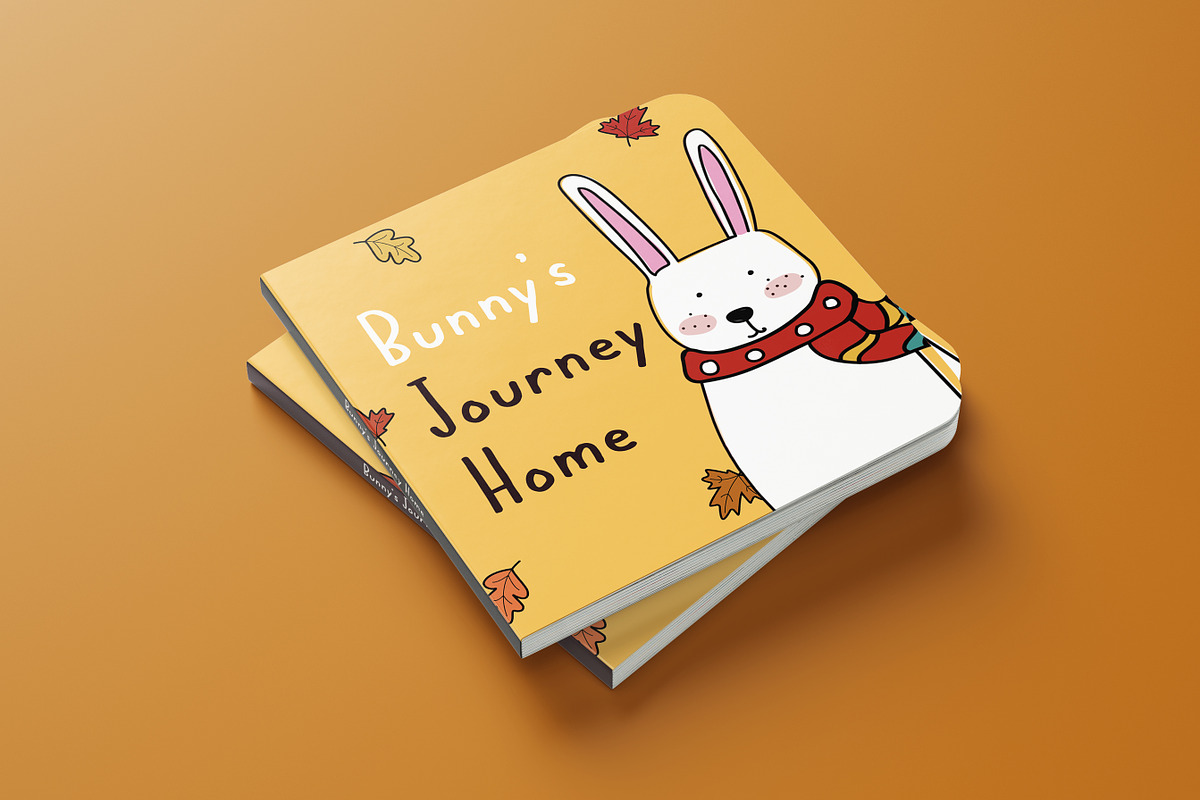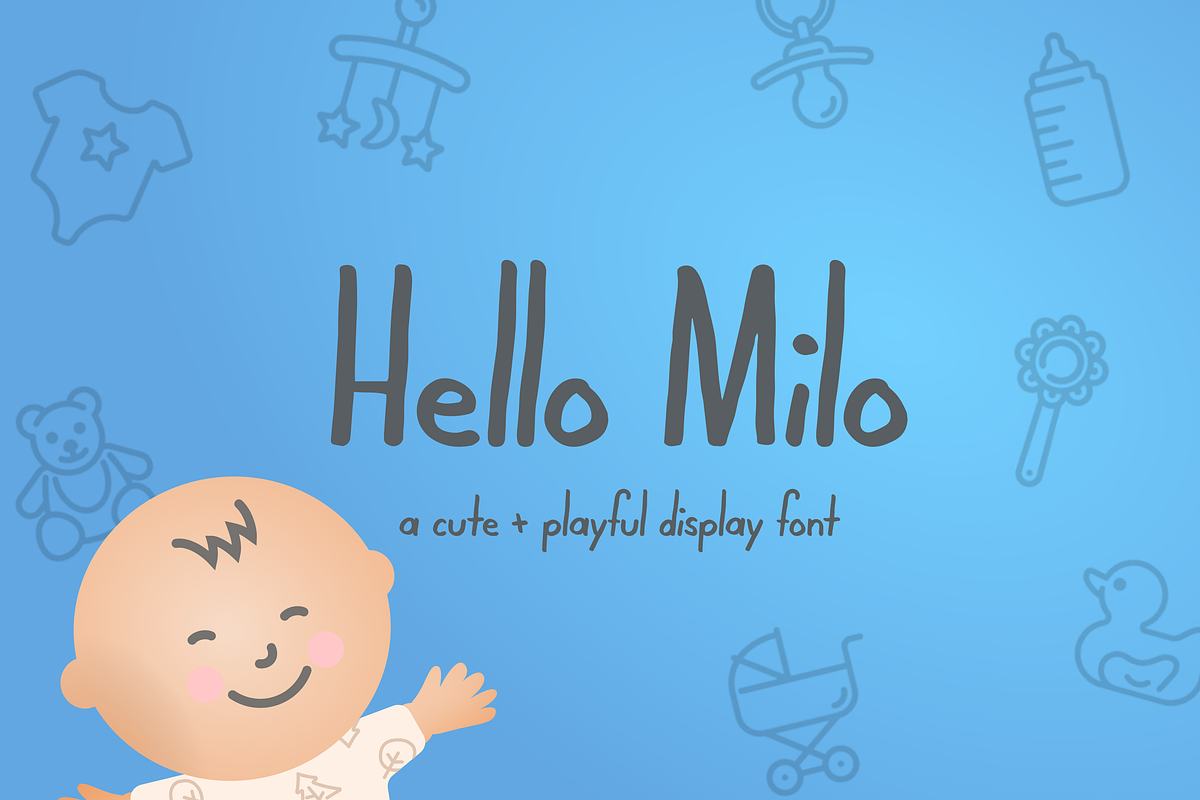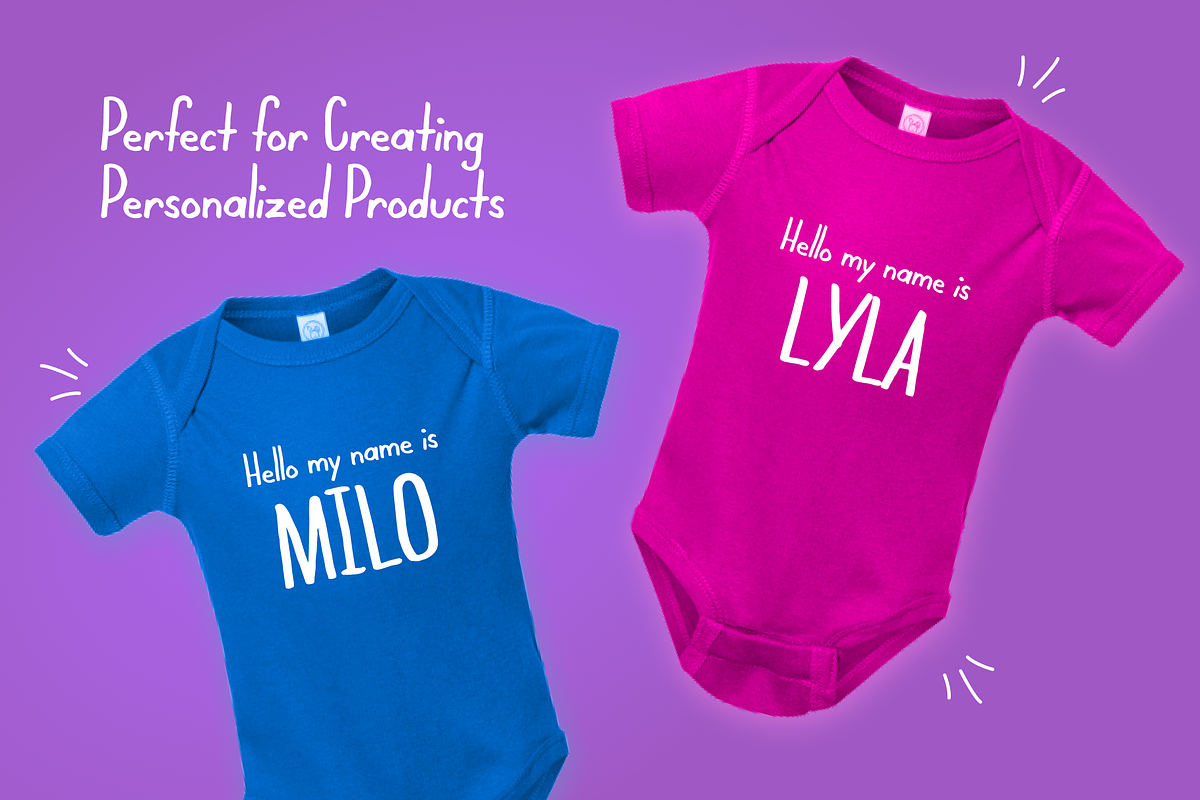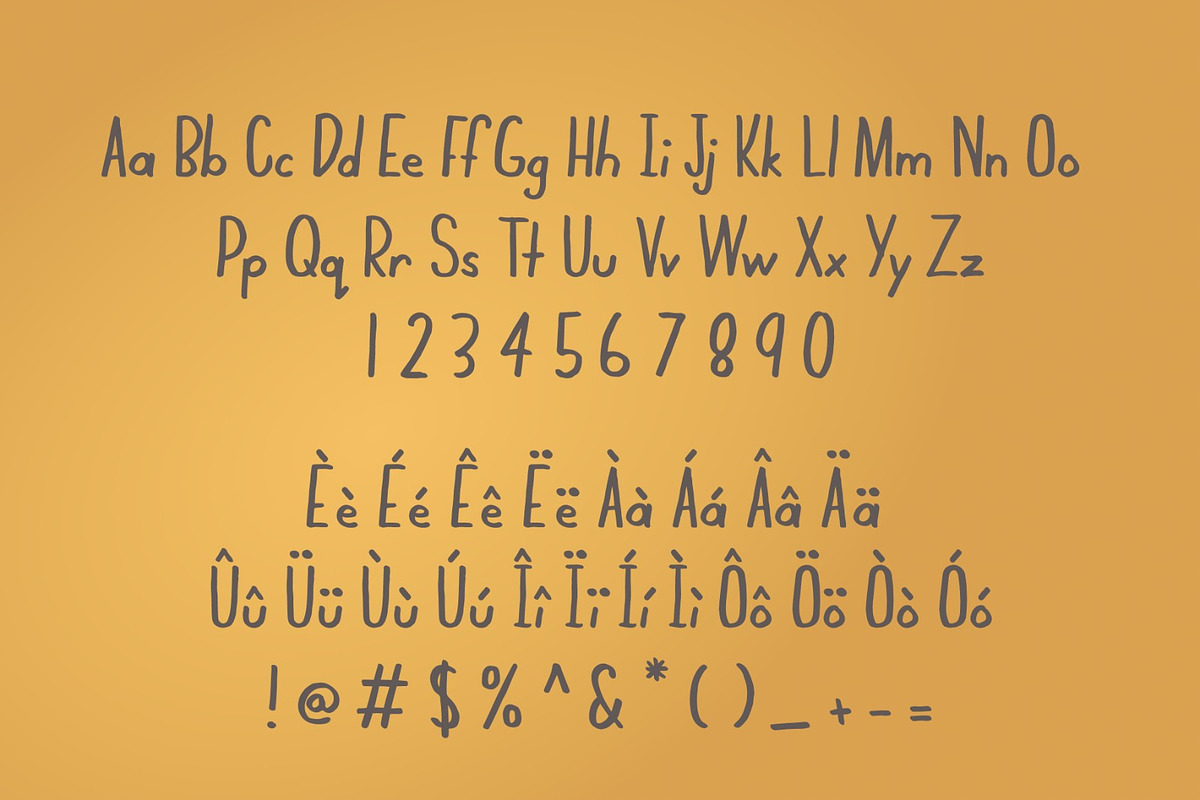
Hello Milo Playful Handwritten Font
Hello Milo is a playful handwritten font designed to add a friendly touch to your book designs, or even add a bit of fun to a magazine article or a delicious recipe. You can also use it to create party invitations, custom cards, or even sprinkle some good vibes into your children's story book design.
Whether you're creating invitations, greeting cards, or social media posts, Hello Milo will help your content stand out. Its handwritten style gives your designs a personal touch, making them feel authentic and inviting.
With Hello Milo, you'll have a typeface that is both fun and functional. Its clean lines and easy readability make it ideal for a variety of projects, while its unique personality helps your content feel more engaging and memorable.
Whether you're a graphic designer or a small business owner, Hello Milo is the perfect choice for adding a touch of charm and playfulness to your designs. Download it now and start creating today!